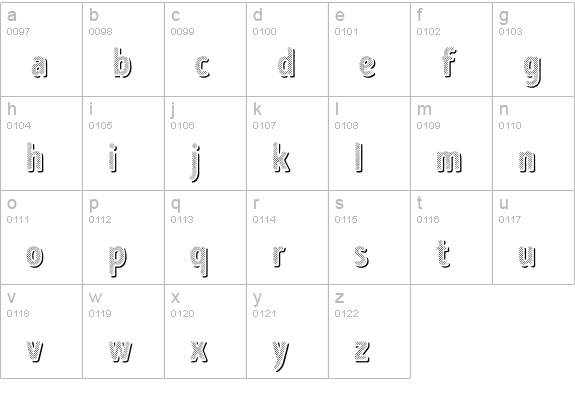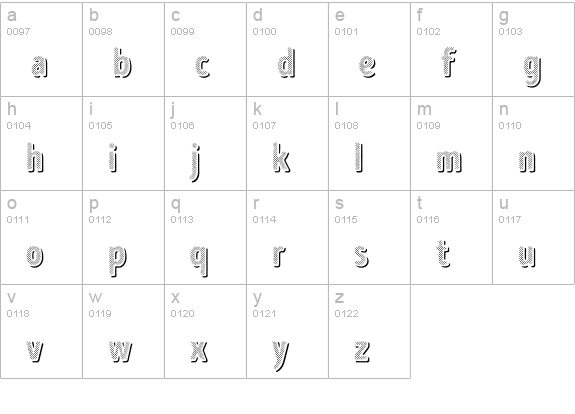
Intro Head H H1 Shade Font Details
The Intro Head H H1 Shade font is a striking and bold display typeface that commands attention with its unique design and modern aesthetic. Its strong geometric shapes and clean lines make it perfect for headlines, titles, and other prominent design elements. The H1 Shade variant adds a subtle shading effect, adding depth and dimension to your text. This font is not only visually impactful but also versatile, making it suitable for a wide range of design projects. Whether you're creating posters, logos, branding materials, or editorial layouts, the Intro Head H H1 Shade font is sure to make a statement. Best of all, this font is available for free download at FontsMarket.com, making it accessible to designers and creatives looking to elevate their work with a high-quality typeface. Don't miss out on this opportunity to add a touch of sophistication and style to your projects with the Intro Head H H1 Shade font.